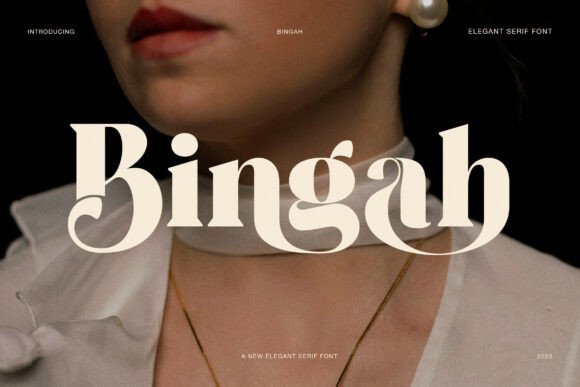
I’ll never forget the countless hours I spent searching for the perfect font for a client’s luxury brand project. The goal was to convey refinement, confidence, and timeless beauty, but every font I tried seemed to fall short. That was until I stumbled upon Bingah Font – an elegant serif display font that instantly captured the essence of the brand. In this article, I’ll share my experience with Bingah, its features, and how to make the most of it in your designs.
A First Impression of Bingah
From the first glance, Bingah delivers a graceful balance between classic typography and modern visual rhythm. Its sculpted curves and expressive contrast make it feel both artistic and professional at the same time. Whether you’re working on a high-end brand project, a wedding invitation, or a luxury product label, Bingah is sure to make a statement.
An Honest Review of Bingah
What I Love About Bingah
- ✨ Elegant serif design that exudes refinement and sophistication
- ✅ Highly legible, even at smaller sizes
- 💫 Beautifully crafted curves and contrast for a unique visual rhythm
- 🎨 Versatile and suitable for various design projects, from luxury brands to artistic endeavors
While Bingah is an exceptional font, there are a few things to keep in mind:
- ⚠️ May not be suitable for body text due to its elegant, yet condensed design
- 🤔 Limited availability of certain OpenType features in older software or platforms
The Backstory of Bingah
Bingah was designed by a team of typographers who sought to create a font that embodies refinement, confidence, and timeless beauty. Inspired by classic serif fonts, they aimed to craft a modern, elegant design that would be suitable for various design projects. Through careful attention to detail and a passion for typography, Bingah was born.
Q: What is Bingah font best used for?
A: Bingah is ideal for luxury brand projects, editorial design, advertising, and any design project that requires an elegant, refined look.
Q: Is Bingah suitable for body text?
A: While Bingah is highly legible, its elegant, condensed design makes it more suitable for headings and titles. For body text, consider using a more traditional serif font.